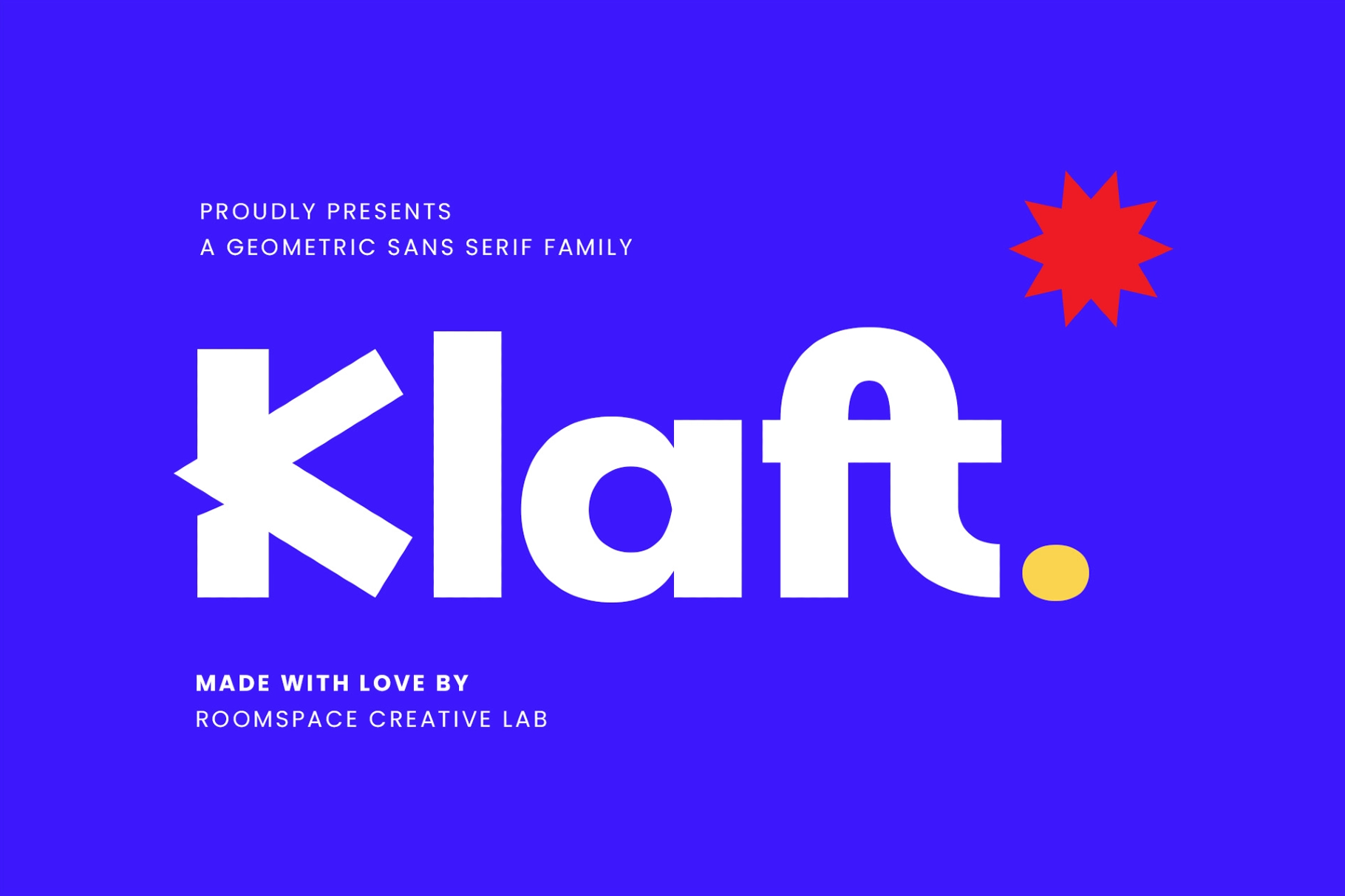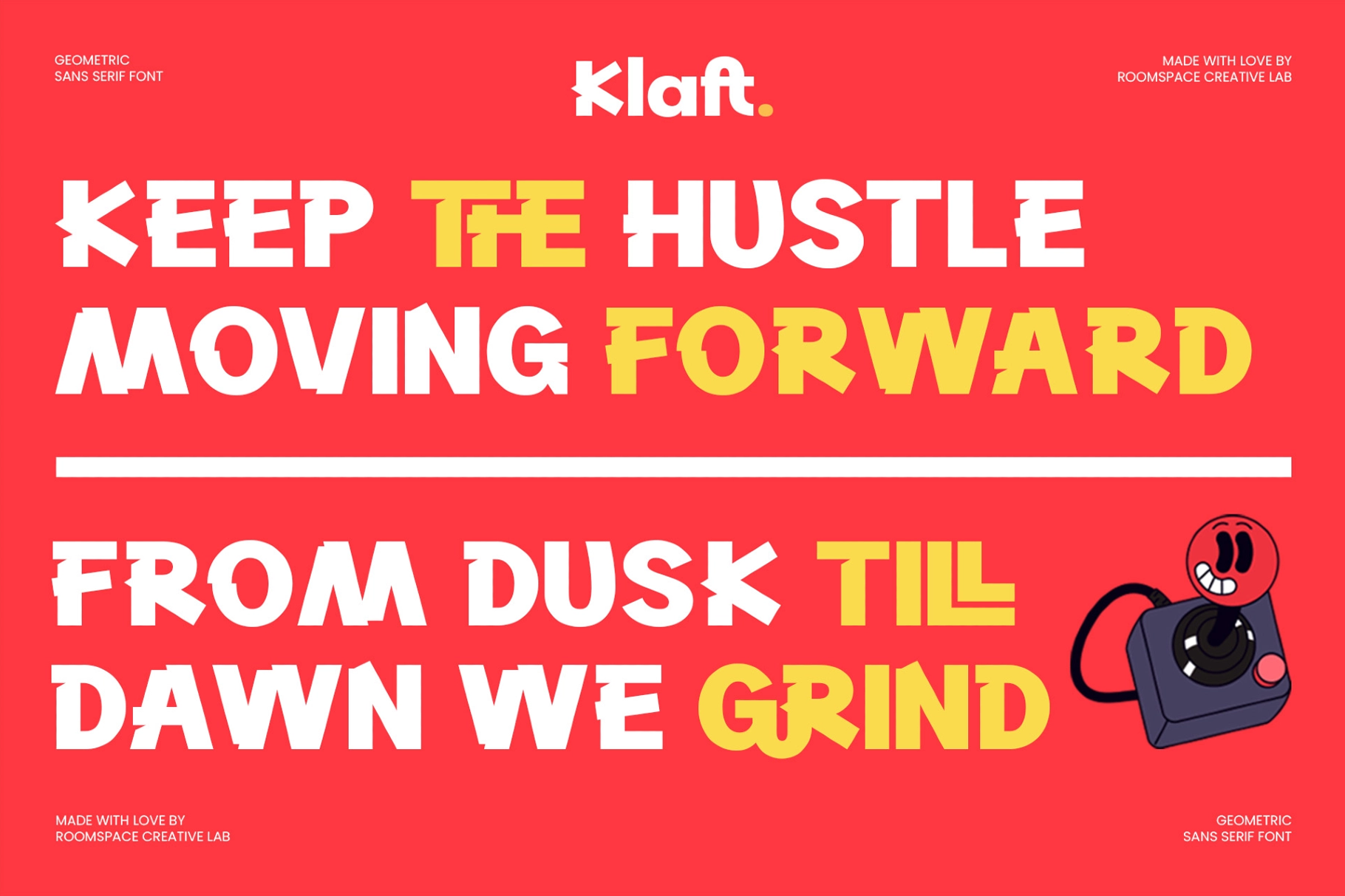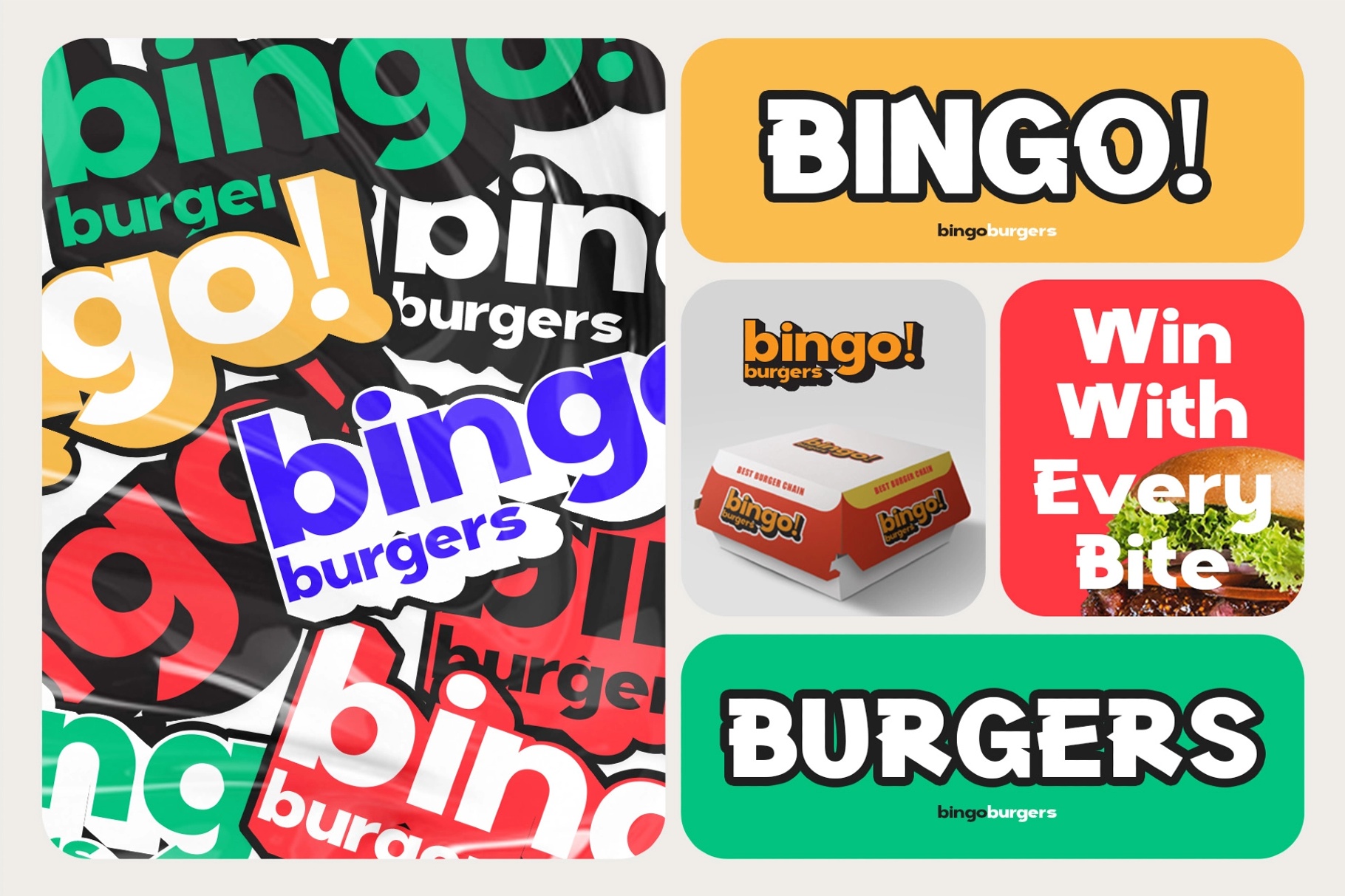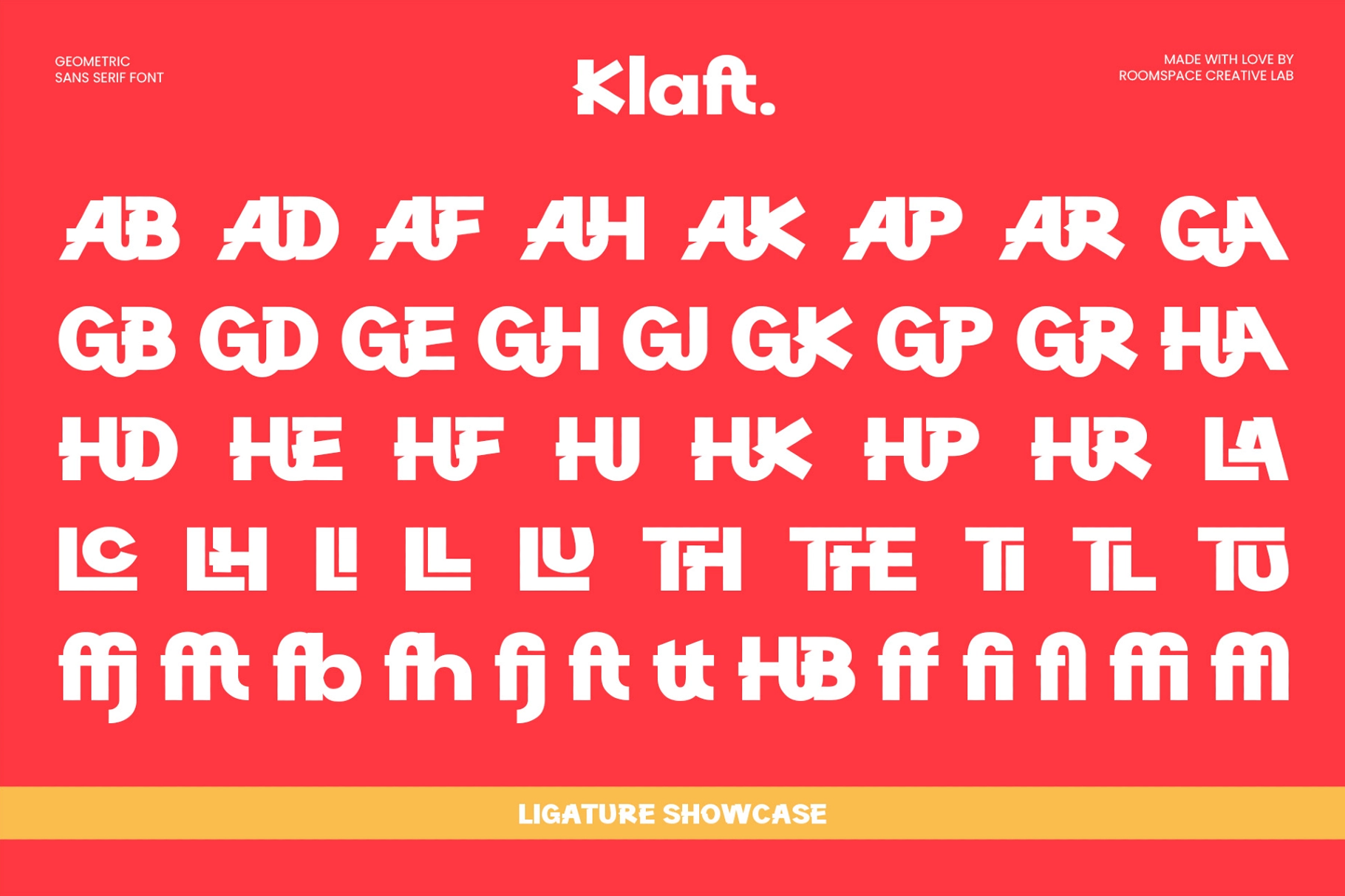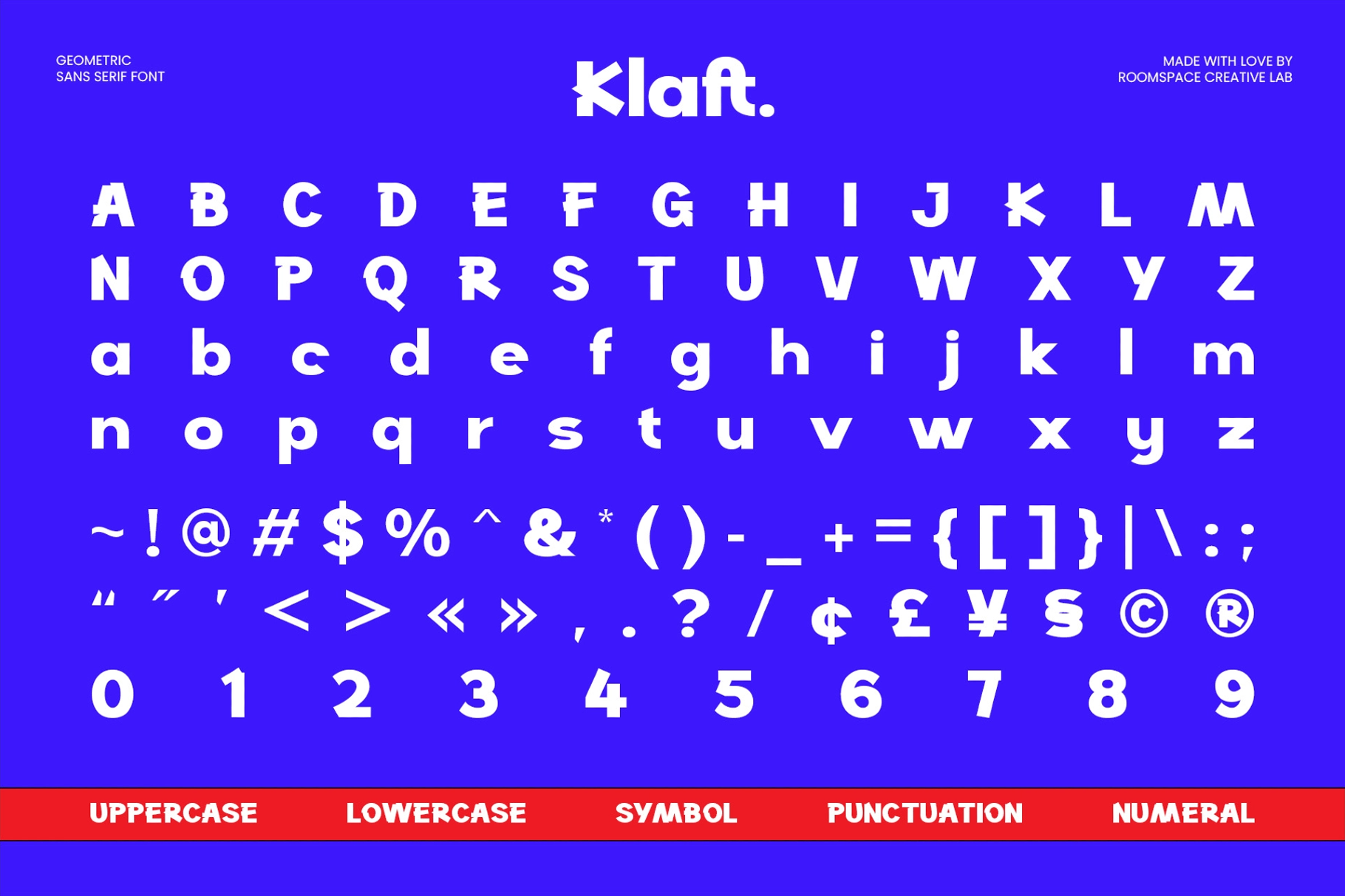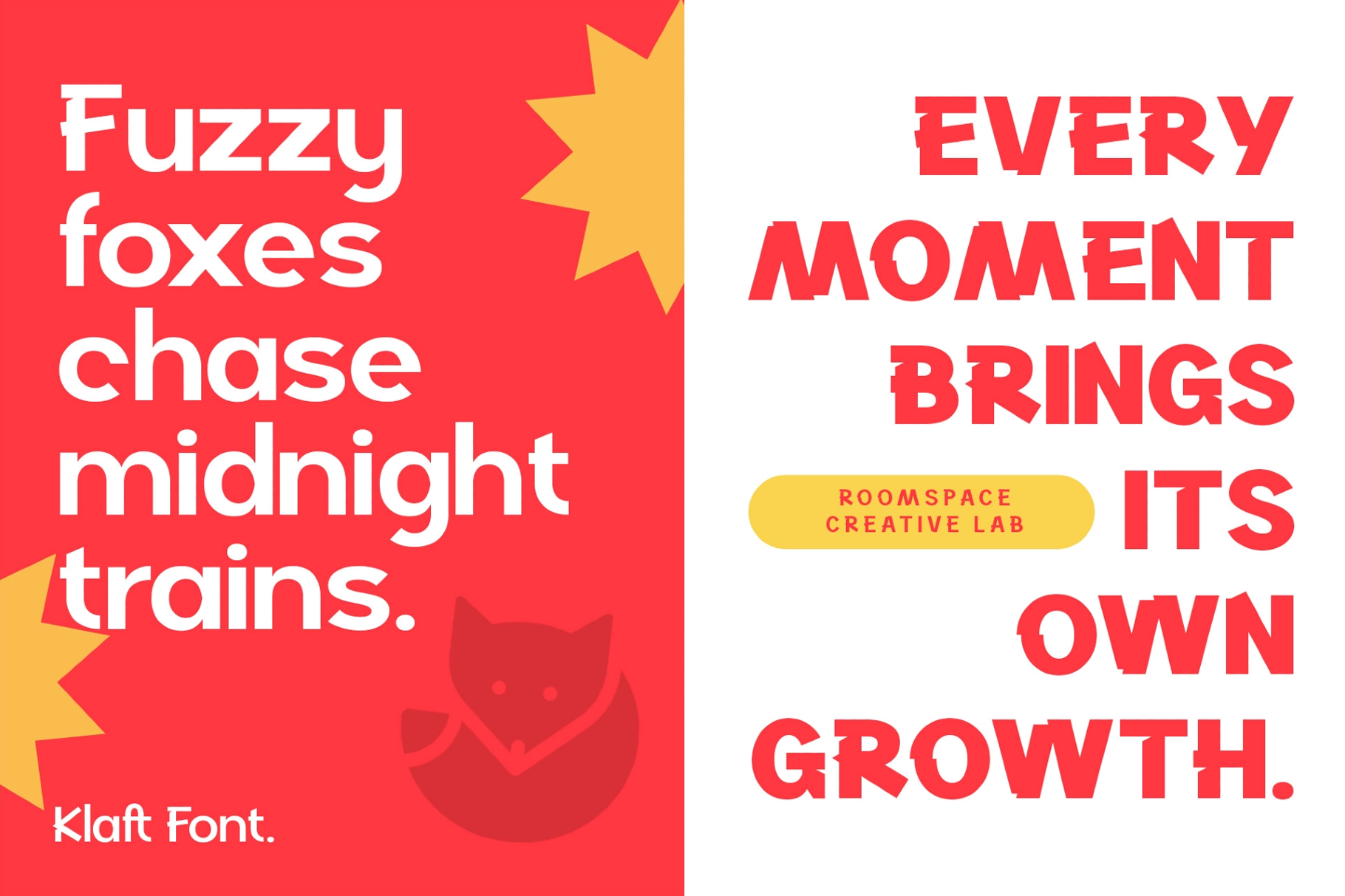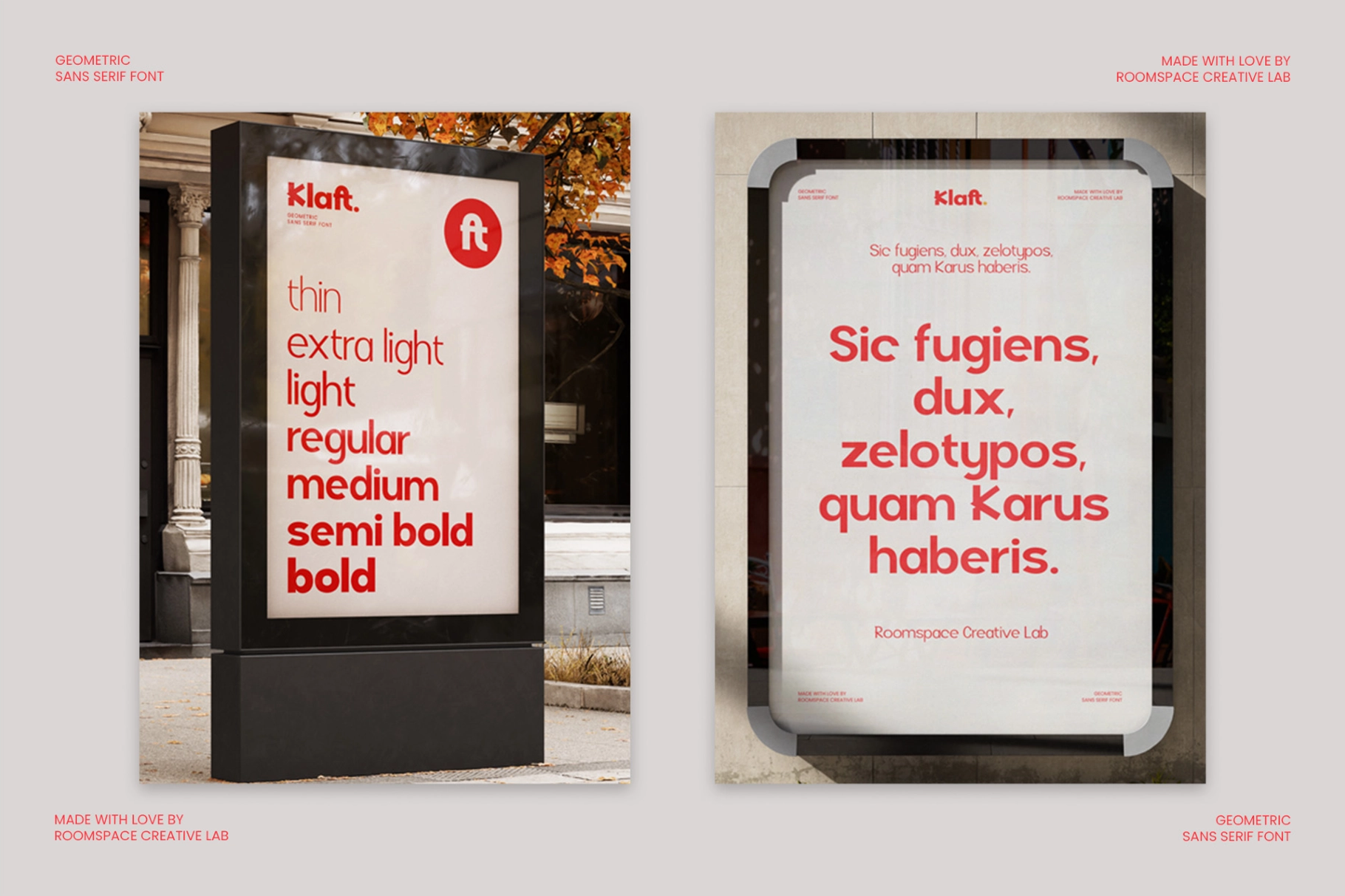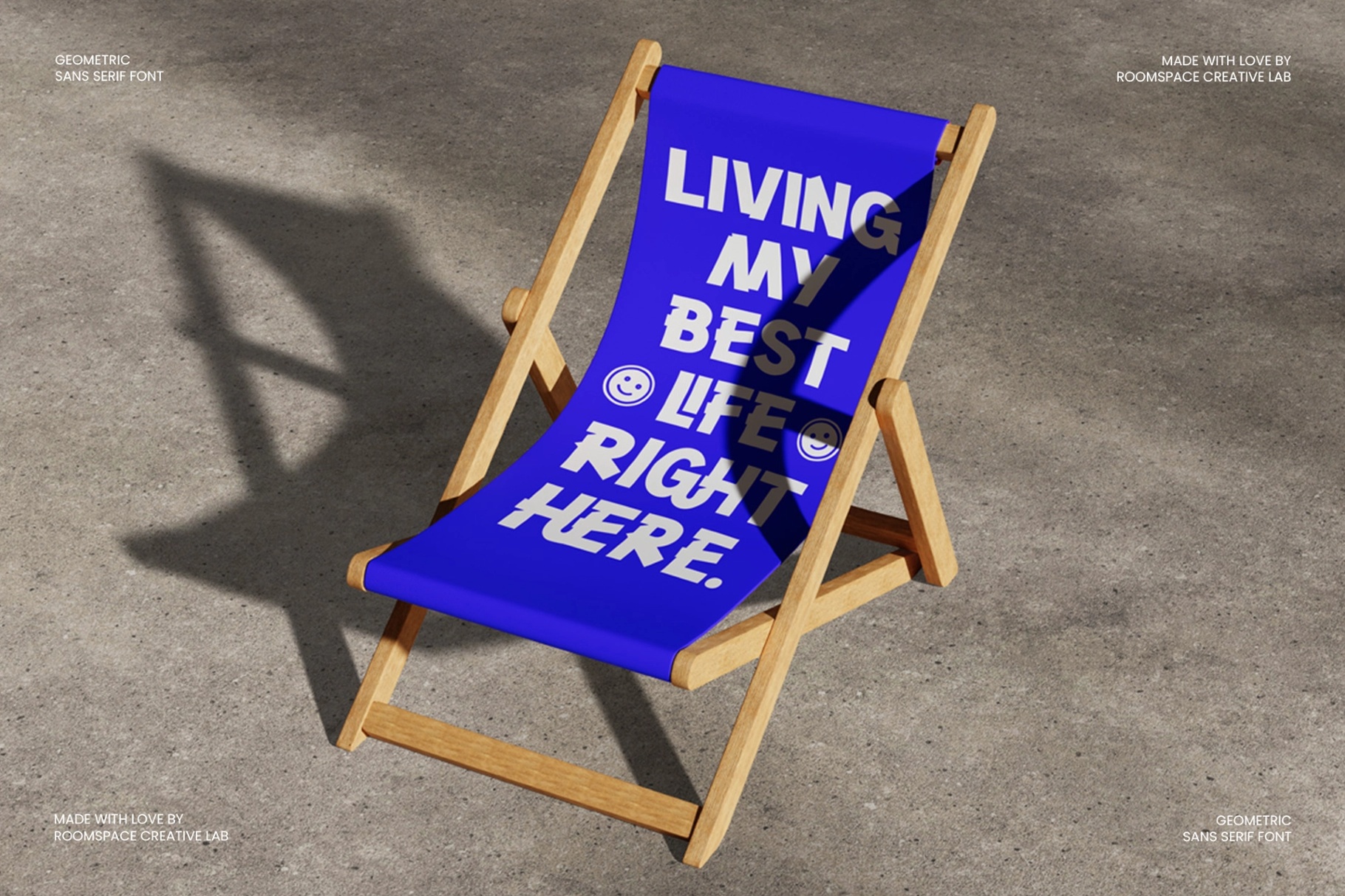
Klaft – Modern Geometric Bold Sans Font
Klaft is a geometric sans serif font family with wide, open apertures, a high x-height, and letterforms that sit somewhere between technical precision and youthful looseness. The lowercase is generous and approachable — single-story "a" and "g", a nicked "k" with a diagonal cut — while the upper weights push into bold display territory with plenty of graphic punch. Seven styles, from Thin to Bold, cover body text and headline work without switching typefaces.
The weight range makes Klaft at home across a wide range of work: lighter cuts hold up in editorial body copy and UI interfaces, while SemiBold and Bold go loud on poster headlines, food packaging, streetwear marks, and social campaign graphics.
- 7 styles: Thin to Bold;
- uppercase & lowercase;
- numerals, punctuation & symbols;
- ligatures;
- multilingual support.